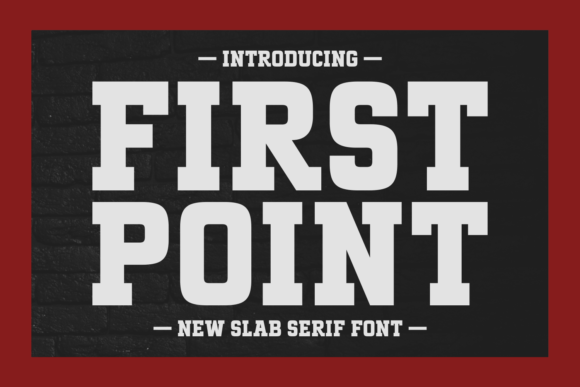
Introducing First Point Font, the ultimate choice for all your comic book design needs. Created by the talented Darman from 7NTypes, this stylish and modern slab serif font is here to revolutionize your creative projects.
With its classic elegance and contemporary flair, First Point effortlessly captures attention and adds a touch of sophistication to any design. Its distinct serifs create a strong visual presence, making it perfect for captivating headlines, eye-catching logos, and bold statements that demand attention.
But First Point is not just about style. Its clean lines and balanced structure ensure exceptional readability, whether in print or on digital platforms. Say goodbye to blurry or illegible text – First Point guarantees a seamless reading experience for your audience, ensuring that every word is effortlessly absorbed and understood.
Versatility is key, and First Point delivers on all fronts. From comic book titles to graphic novels, this font breathes life into your storytelling, evoking emotions and immersing readers in your narrative. Its timeless appeal adds a touch of nostalgia, reminiscent of the golden age of comic books while still maintaining a modern edge.
No matter the design project – be it websites, posters, packaging, or social media graphics – First Point is your go-to font for creating a lasting impression. Its captivating charm and versatility make it suitable for a wide range of industries, from entertainment to advertising, ensuring that your message resonates with your target audience.